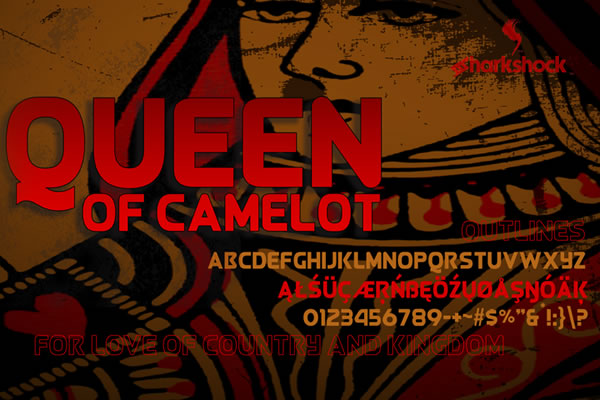
Unleash the Majesty of Your Creations with Queen of Camelot Font, the Regal Sans Serif that Commands Attention!
Behold, typography enthusiasts and design visionaries! Allow us to present the Queen of Camelot Font, a sans serif masterpiece that exudes elegance, power, and visual intrigue. This regal font family, crafted by the skilled hands of Sharkshock, is a true crown jewel in the realm of typography.
Queen of Camelot is not just a font; it's an experience, an invitation to let your imagination soar and create designs that captivate and inspire. Its smooth, rounded joins, proportionate weights, and meticulous kerning create a seamless visual flow that draws the eye and leaves a lasting impression.
With its inherent versatility, the Queen of Camelot Font reigns supreme in the world of design, whether it's for publications, branding, or sports. Its commanding presence adds a touch of sophistication to any project, transforming ordinary words into captivating statements.
Beyond its aesthetic charm, the Queen of Camelot Font boasts a comprehensive character set that includes punctuation, basic Latin, ligatures, and diacritics for Poland and Eastern Europe. This inclusivity ensures that your designs can reach a global audience, transcending linguistic boundaries.
So, why settle for ordinary fonts when you can embrace the grandeur of the Queen of Camelot Font? Let your creativity flourish as you harness its power to craft designs that command attention and leave an indelible mark on the world.